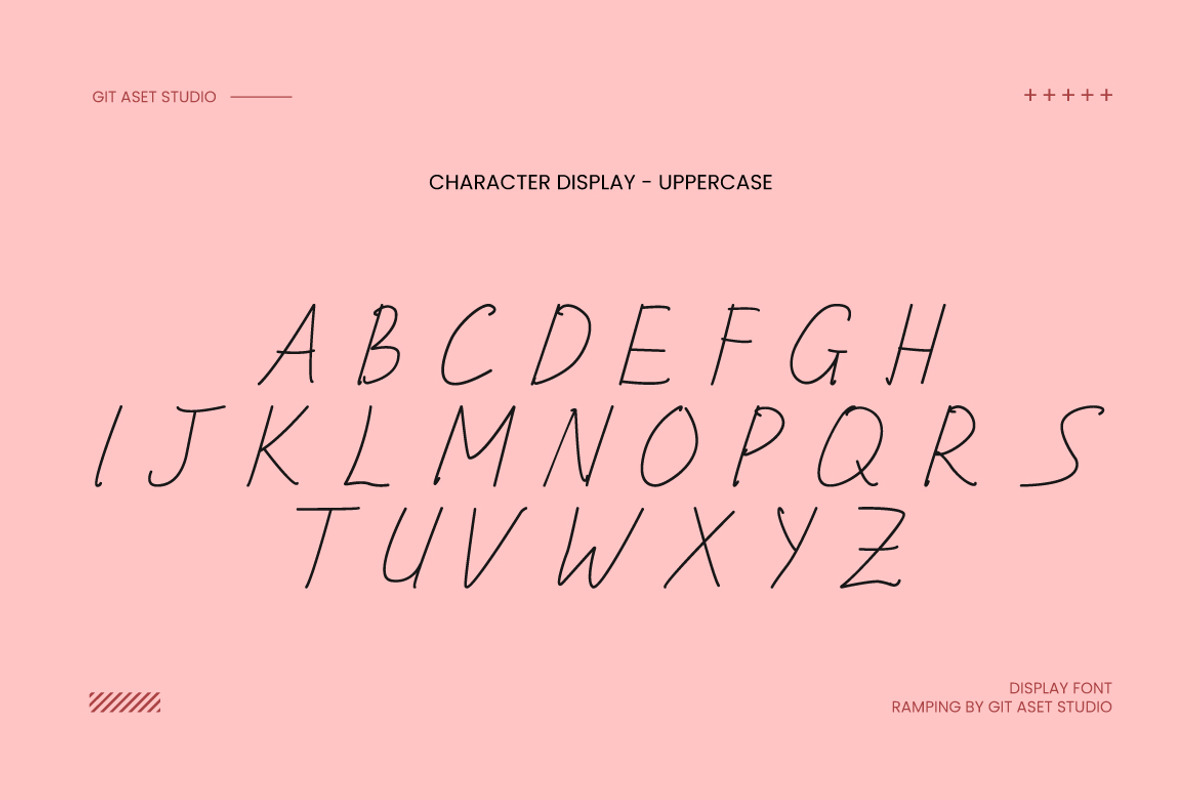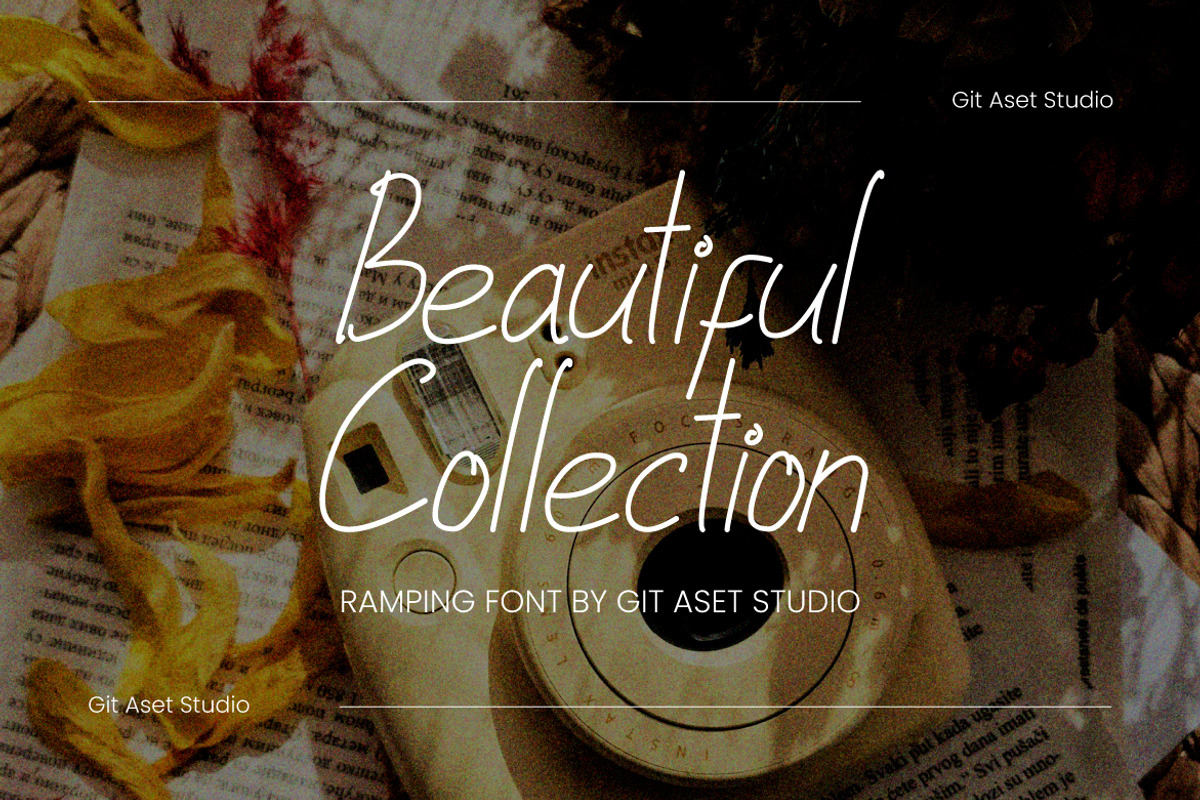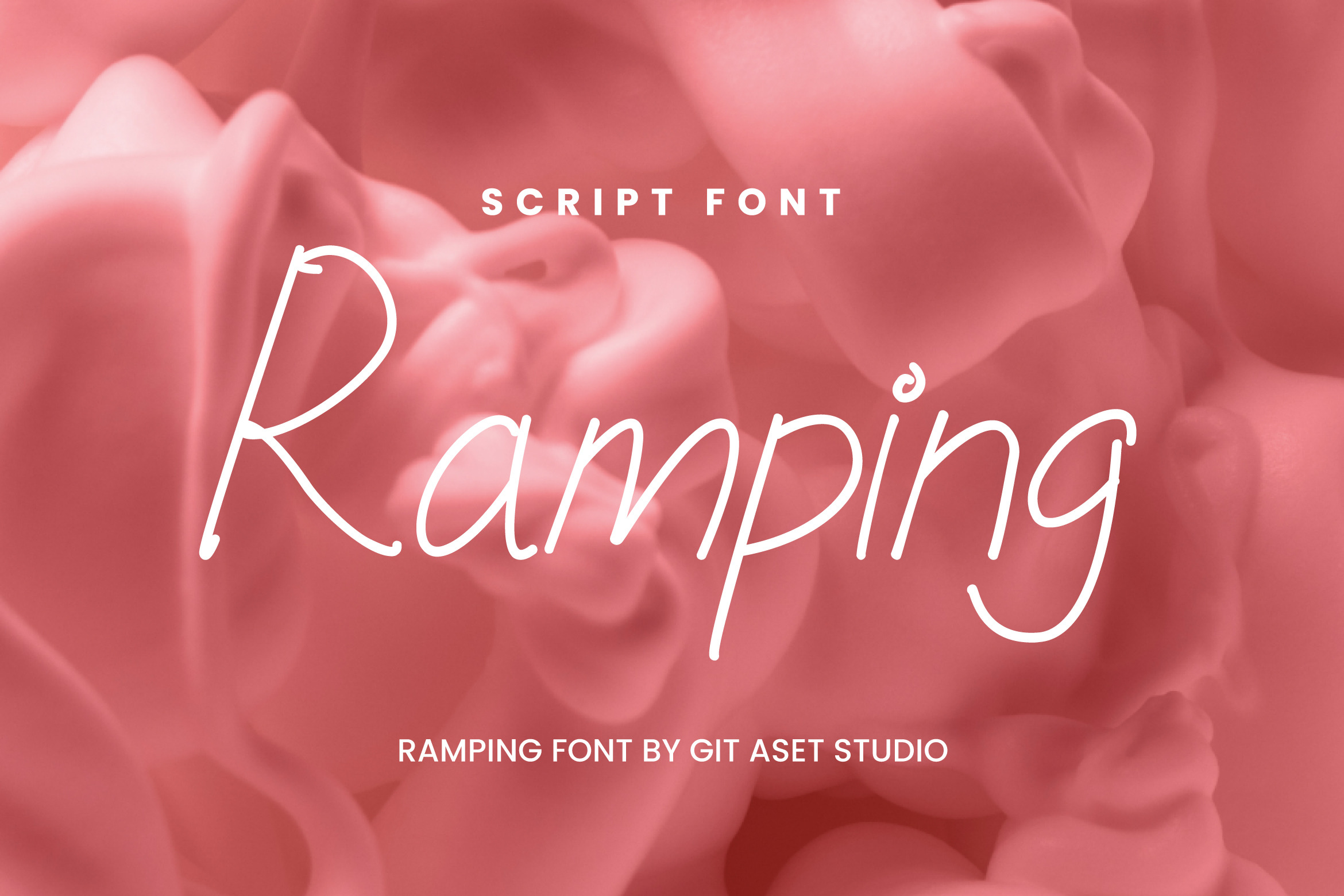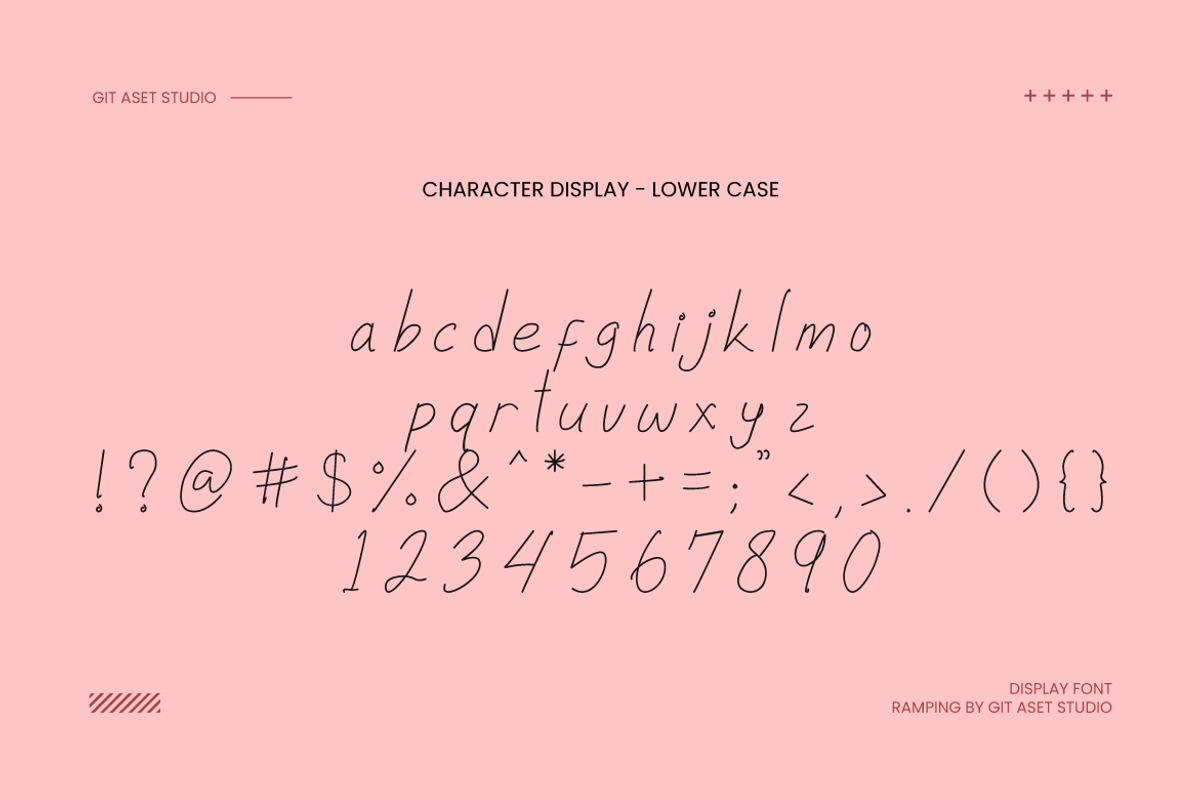
Ramping Handwritten Font
This Ramping Handwritten Font is a perfect choice for adding a touch of elegance and sophistication to your design projects. With its delicate strokes and graceful curves, this font exudes a sense of beauty and refinement.
Its versatility makes it suitable for various types of design projects. For example, you can use it to create elegant wedding invitations, sophisticated branding materials, or minimalist websites with a refined touch. This font can also be incorporated into artwork, packaging, and social media graphics to add a unique and personal element to your creations.